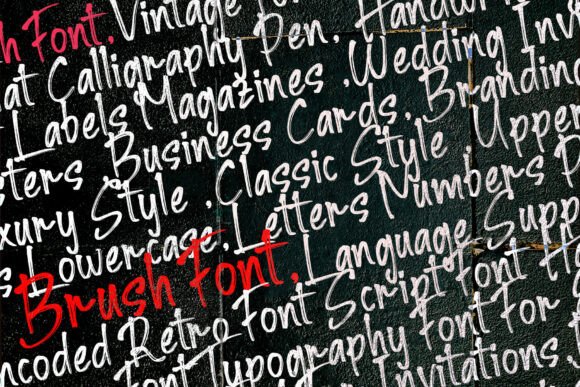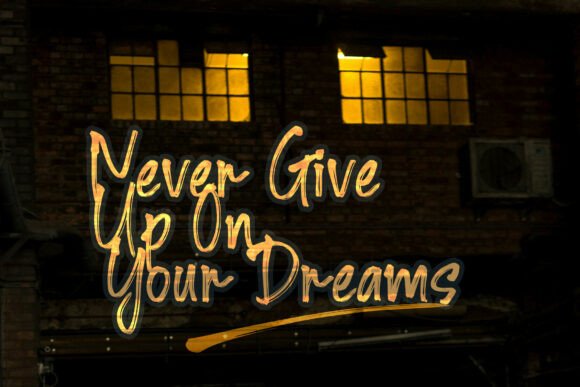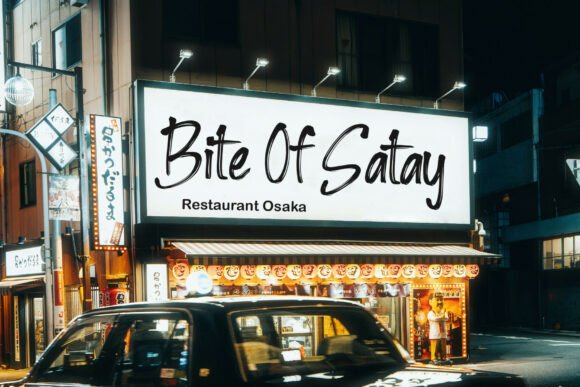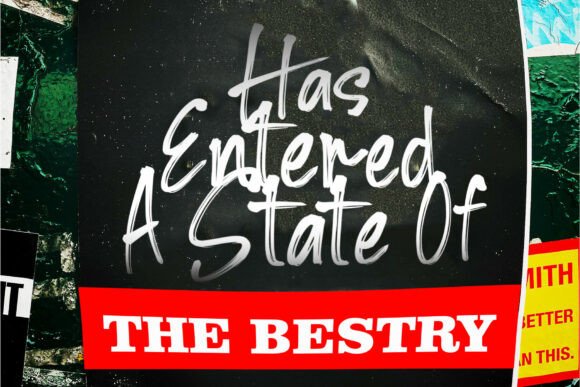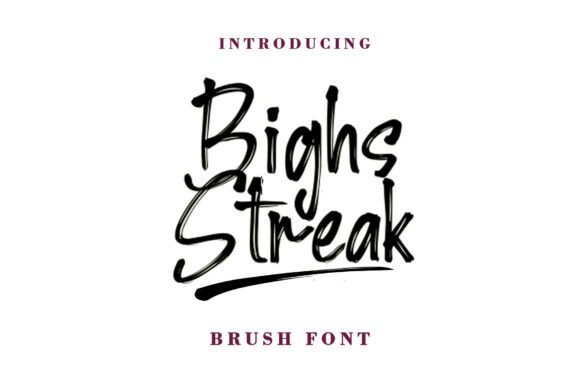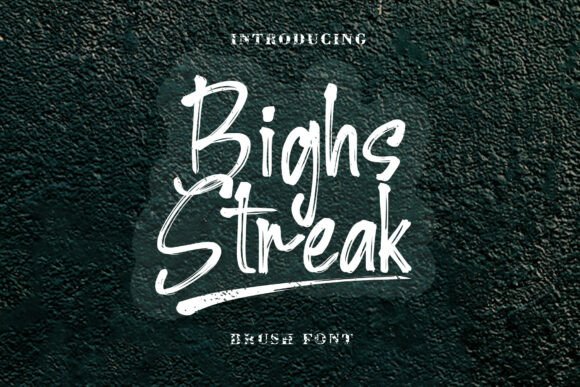
Bighs Streak Font: A Rugged yet Serene Brush Font for Your Creative Projects
In the world of typography, fonts play a crucial role in conveying the tone and personality of a brand or creative project. If you’re looking for a font that embodies the essence of nature, while also standing out boldly, then Bighs Streak Font is an excellent choice. This rugged, nature-inspired brush font strikes a harmonious balance between serenity and character, making it perfect for projects that require a touch of natural brushstrokes.
The Unique Charm of Bighs Streak Font
Bighs Streak Font boasts a distinctive, rough-edged aesthetic that sets it apart from more traditional fonts. Its extraordinary character is reminiscent of natural brushstrokes, evoking a sense of calm and awe. The font’s versatility makes it an excellent choice for a wide range of creative projects, from branding and advertising to packaging and digital media.
One of the standout features of Bighs Streak Font is its ability to add a touch of organic, handmade charm to any project. The font’s rugged texture and natural feel make it perfect for designs that require a sense of earthiness and authenticity. Whether you’re creating a logo, poster, or social media graphic, Bighs Streak Font is sure to make your work stand out.
What Makes Bighs Streak Font So Special?
So, what sets Bighs Streak Font apart from other brush fonts on the market? Here are just a few reasons why this font is a cut above the rest:
- Natural, hand-crafted feel: Bighs Streak Font has a distinctly organic, handmade quality that makes it perfect for designs that require a touch of personality and character.
- Rugged yet serene: This font strikes a unique balance between ruggedness and serenity, making it perfect for projects that require a sense of calm and awe.
- Versatile: Bighs Streak Font is an incredibly versatile font that can be used in a wide range of creative projects, from branding and advertising to packaging and digital media.
- Easy to read: Despite its rugged texture, Bighs Streak Font is surprisingly easy to read, making it perfect for designs that require a clear, concise message.
How to Use Bighs Streak Font in Your Projects
Ready to give Bighs Streak Font a try? Here are a few tips for incorporating this amazing font into your creative projects:
- Use it for headlines: Bighs Streak Font is perfect for headlines and titles, where its bold, rugged texture can really make an impact.
- Add it to your branding: If you’re looking for a font that can help you establish a strong, natural brand identity, Bighs Streak Font is an excellent choice.
- Experiment with different colors: Bighs Streak Font looks amazing in a range of colors, from earthy tones like green and brown to bold, bright hues like red and orange.
- Pair it with other fonts: Bighs Streak Font pairs beautifully with other fonts, particularly those with a clean, sans-serif aesthetic.
In conclusion, Bighs Streak Font is an exceptional choice for designers and crafters looking for a rugged, nature-inspired brush font that exudes serenity and character. Its unique blend of rough edges and natural texture makes it perfect for a wide range of creative projects, from branding and advertising to packaging and digital media. With its ease of use, versatility, and stunning aesthetic, Bighs Streak Font is sure to become a favorite in your font collection.